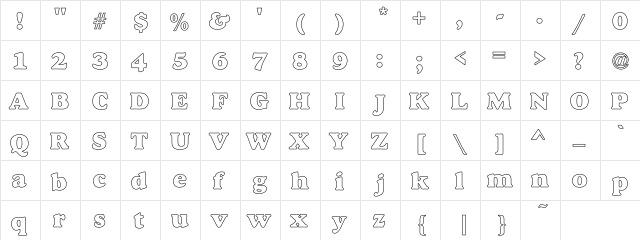
Alexuss Heavy Hollow Regular
Design Context for Alexuss Heavy Hollow Typeface
Alexuss Heavy Hollow takes a measured approach to typography — its balanced proportions and neutral character make it a reliable workhorse for both digital and print work.